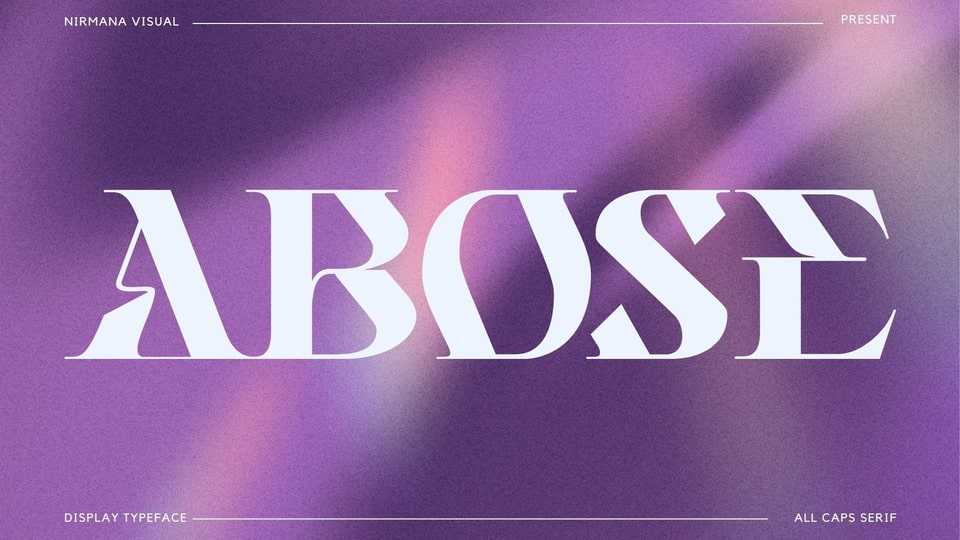
Download Abose font a modern and sophisticated high-contrast serif typeface that seamlessly merges classic refinement with contemporary aesthetics. Abose font is a testament to the perfect balance of tradition and innovation.